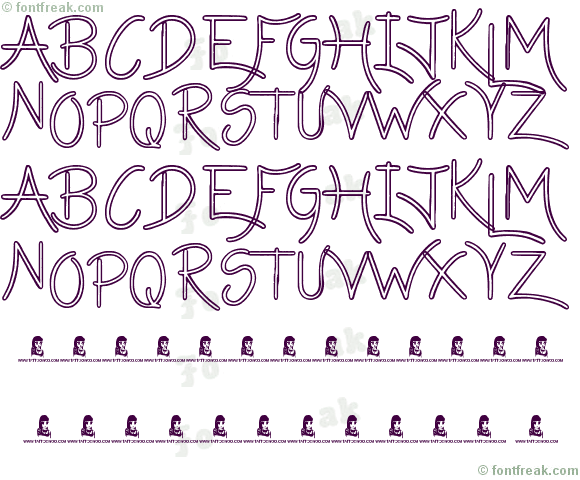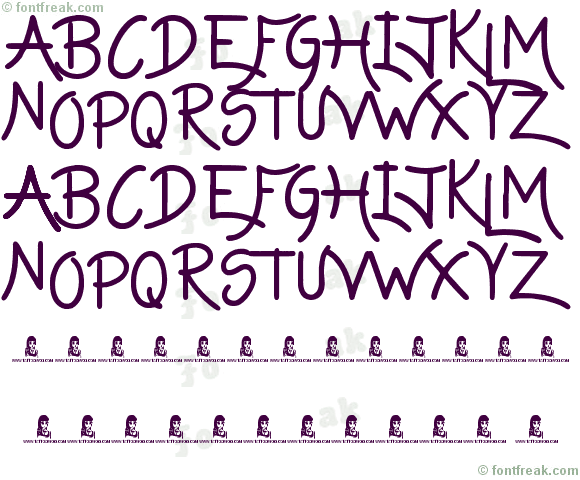
Lazy Girls hollow
Lazy Girls
About Lazy Girls hollow
Lazy Girls hollow is a captivating display font designed by Jonathan S. Harris, characterized by its unique hollowed-out structure that exudes a playful yet stylish aesthetic. As a decorative typeface, it stands out with an organic, hand-drawn feel that perfectly encapsulates a sense of whimsy and creativity. The strokes are consistently thick, lending the font a bold presence, while the hollowing effect adds a layer of depth and intrigue. With its slightly irregular spacing, Lazy Girls hollow embraces an informal charm, making it suitable for a variety of design projects.
This font shines in specific use cases where its distinctive style can be fully appreciated. It is ideal for crafting engaging wedding invitations that demand attention and set a playful tone. Additionally, it works wonderfully for creating eye-catching movie posters, where its unique characteristics can help convey the film's theme. Restaurant menus can also benefit from Lazy Girls hollow, providing a fun and inviting element that enhances the dining experience. For content creators, using this font in social media graphics or promotional materials can make posts stand out in a crowded feed.
Target audiences for Lazy Girls hollow include graphic designers looking to add a unique touch to their projects, small business owners aiming to create memorable branding, and content creators seeking a distinctive font that aligns with their creative vision.
What truly sets the Lazy Girls hollow font apart is its ability to combine playfulness with sophistication, making it versatile for a range of applications. With its free download available, this font offers an excellent opportunity for anyone wanting to infuse their work with a distinctive, artistic flair. Whether you are designing for personal or professional projects, the Lazy Girls hollow font free download is a fantastic choice to elevate your creative endeavors.